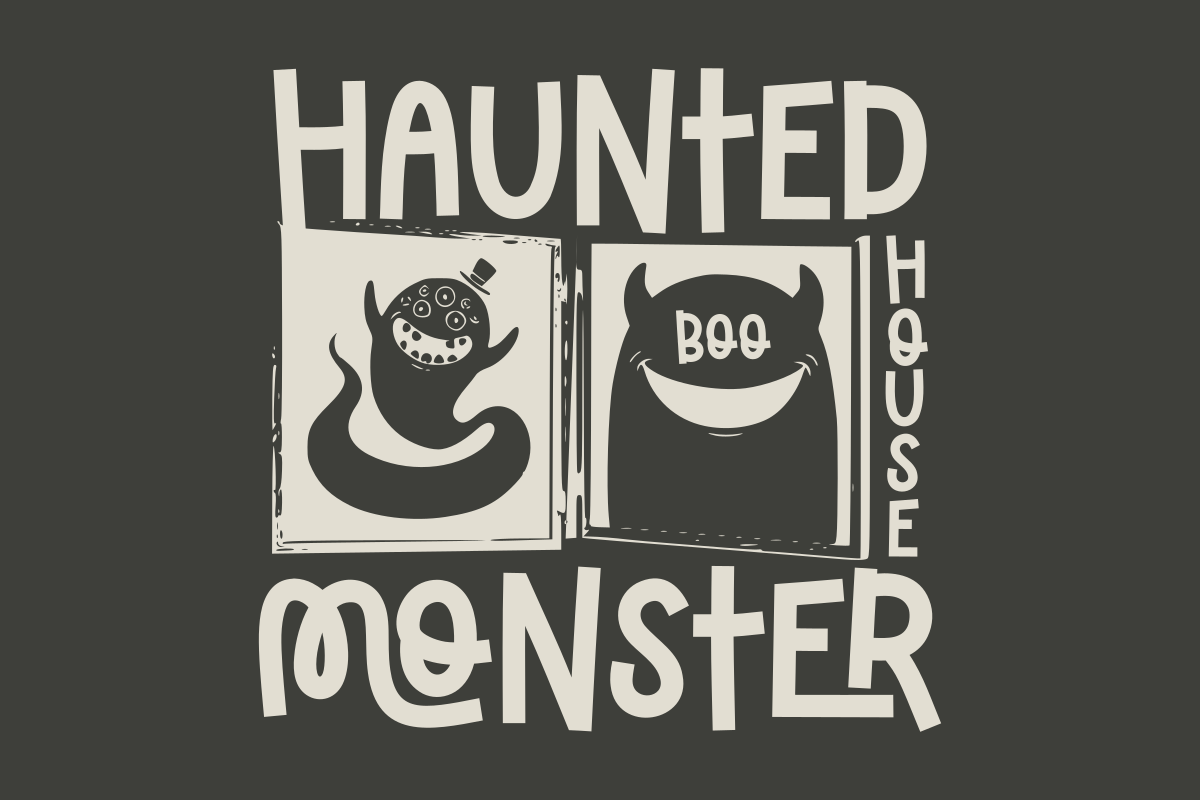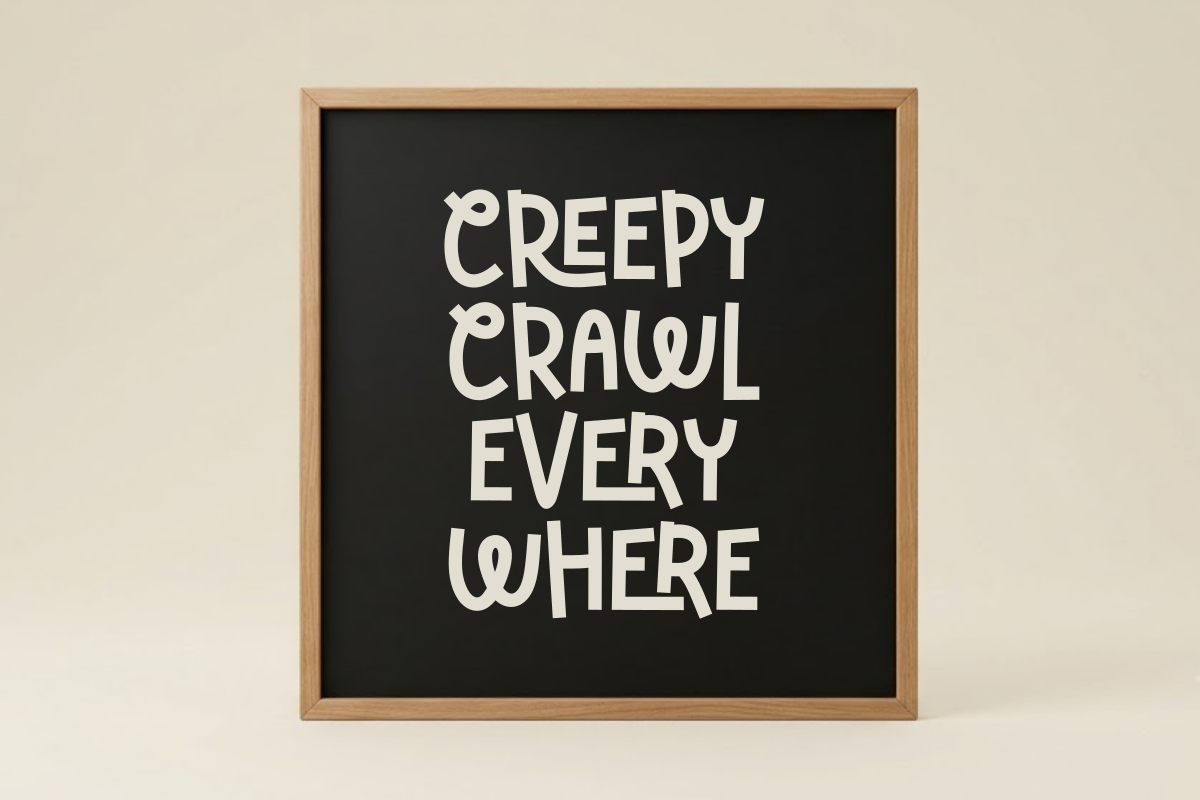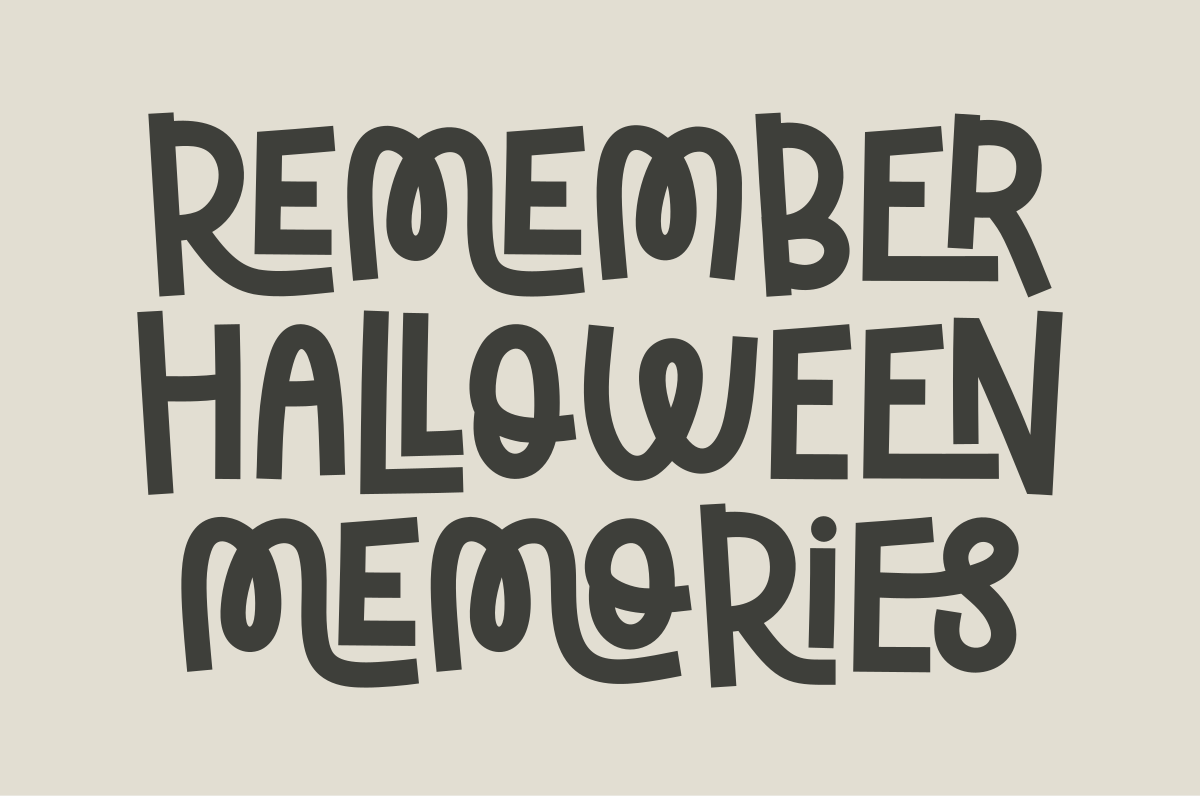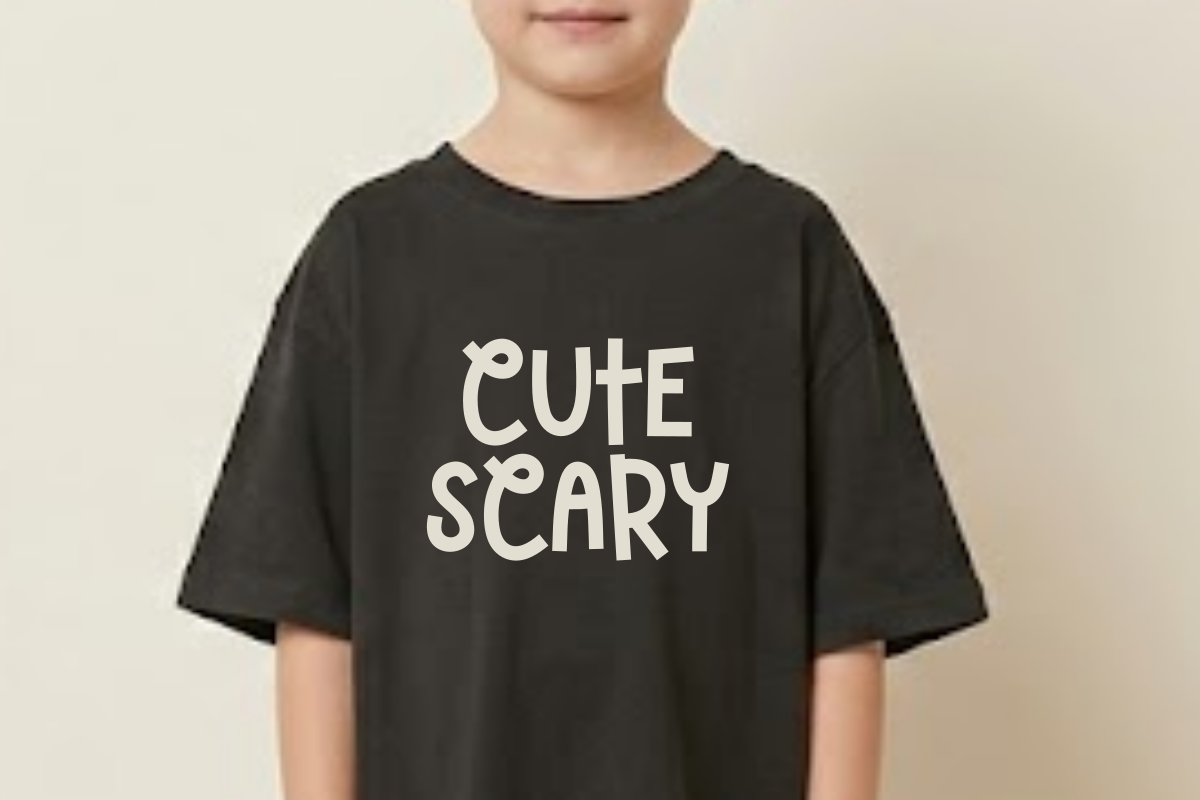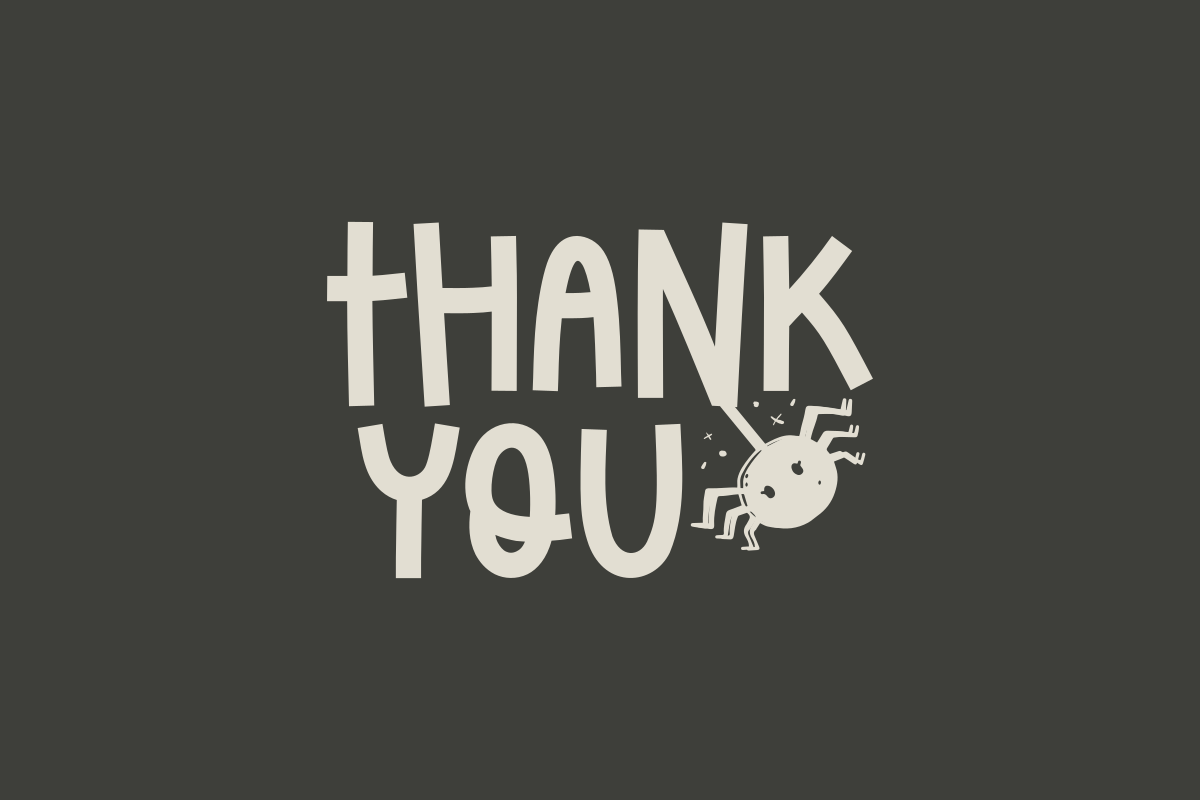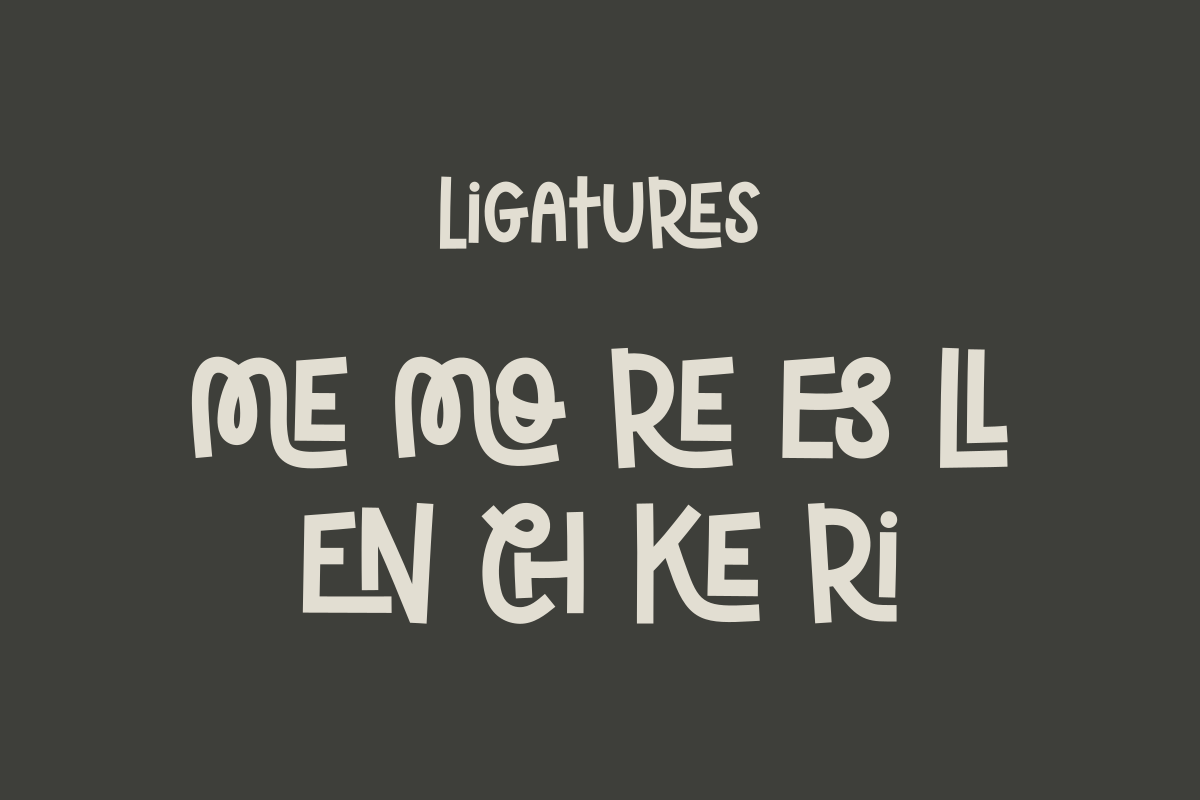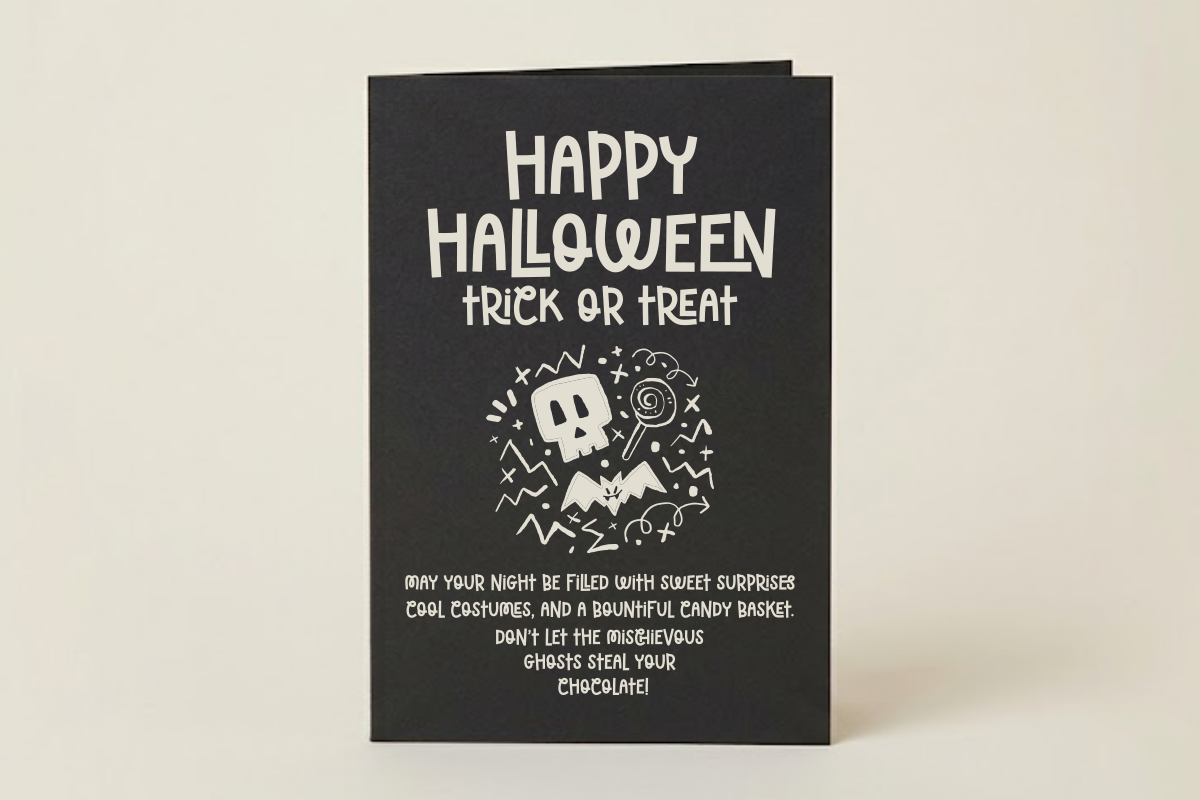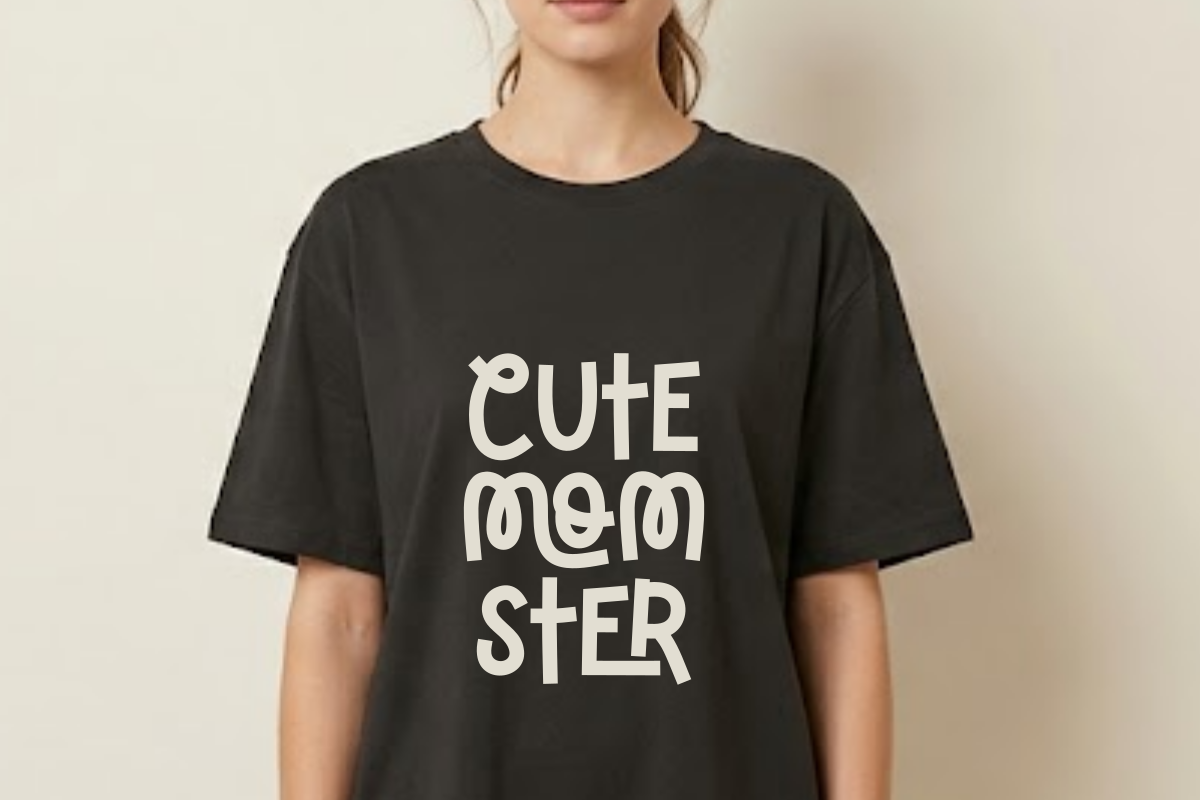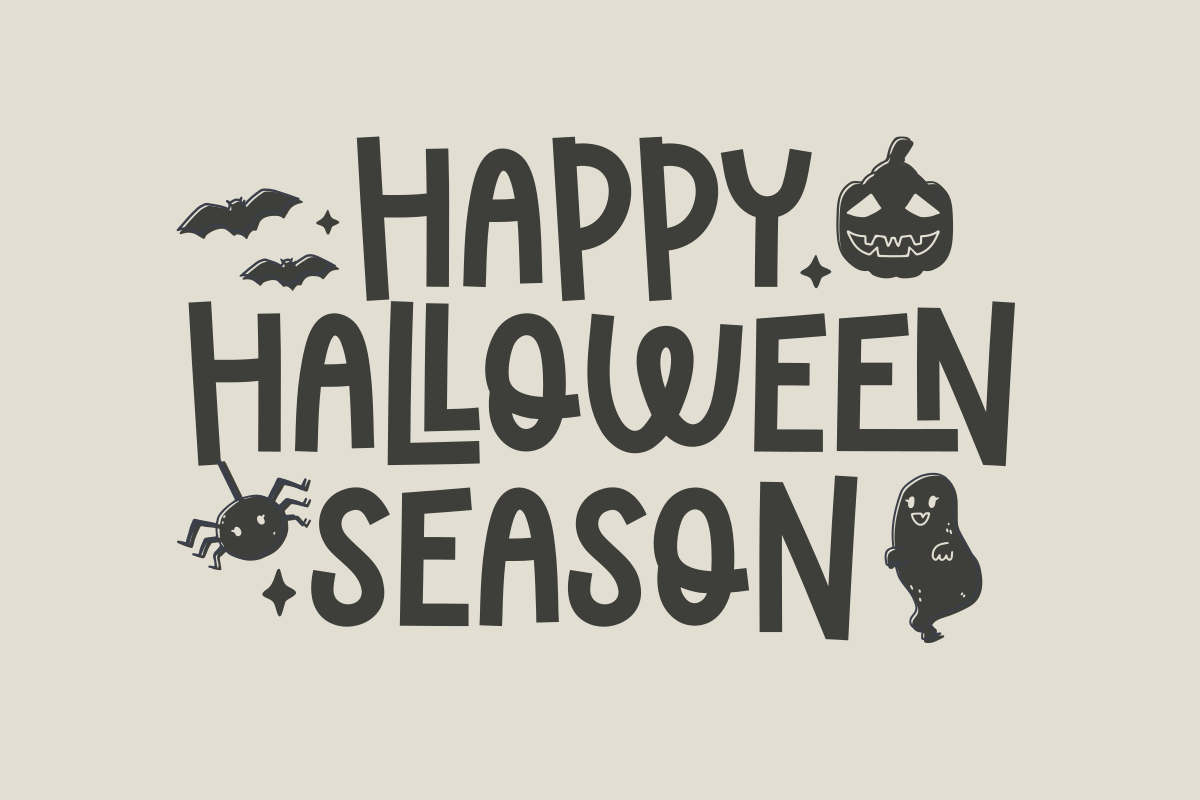
Witches Halloween - Quirky Display
Witches Halloween is an engaging and unique all caps quirky display font designed to bring a magical, eerie energy to your creative projects. This distinctive typeface features tall, stylized letterforms with whimsical curves that effortlessly capture a festive spooky spirit. Perfect for Halloween branding, seasonal party invitations, spooky posters, apparel, and creative social media graphics, this font ensures your headlines stand out with a distinct handcrafted personality. Whether you are designing for trick-or-treat merchandise, horror-themed events, or mysterious packaging, Witches Halloween adds a playful yet spooky touch to every design.